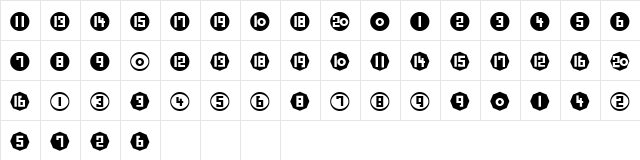
Complete Number Plain glyph index. Displaying only characters natively supported by Number Plain font.
Number is a composed and adaptable typeface that performs quietly and consistently across a wide range of design contexts.